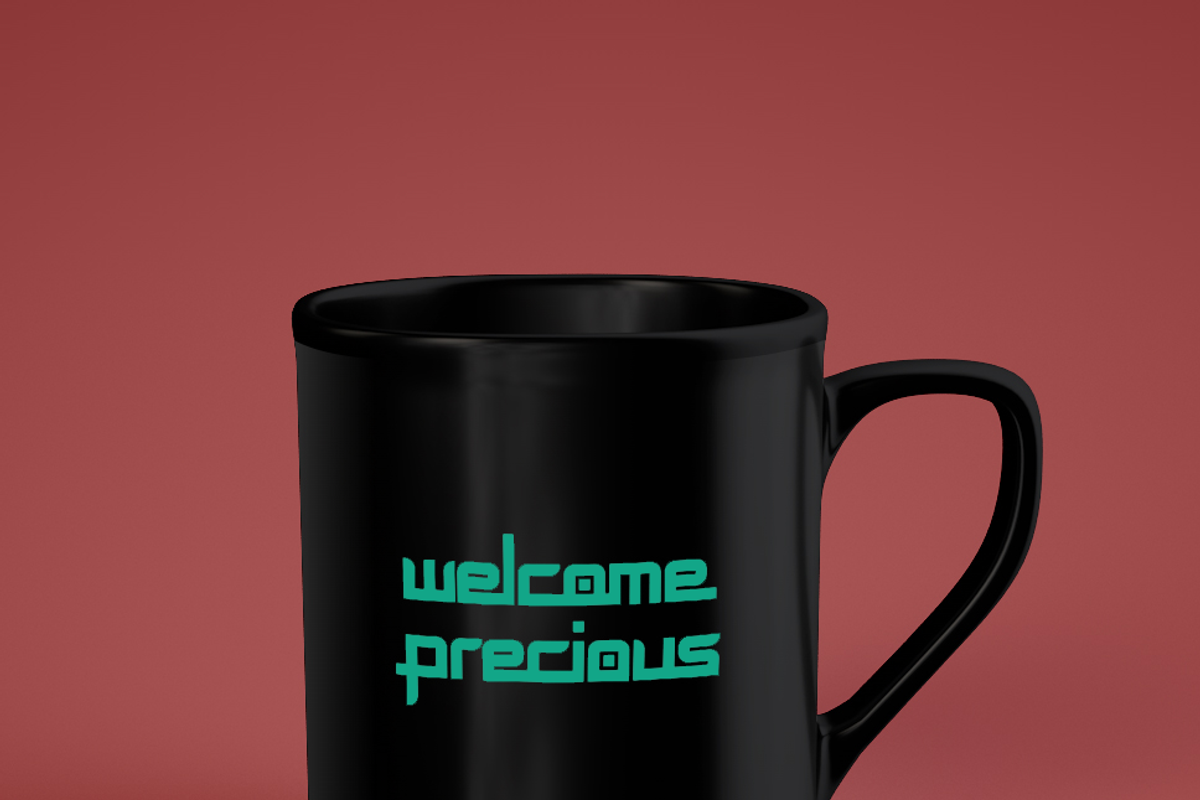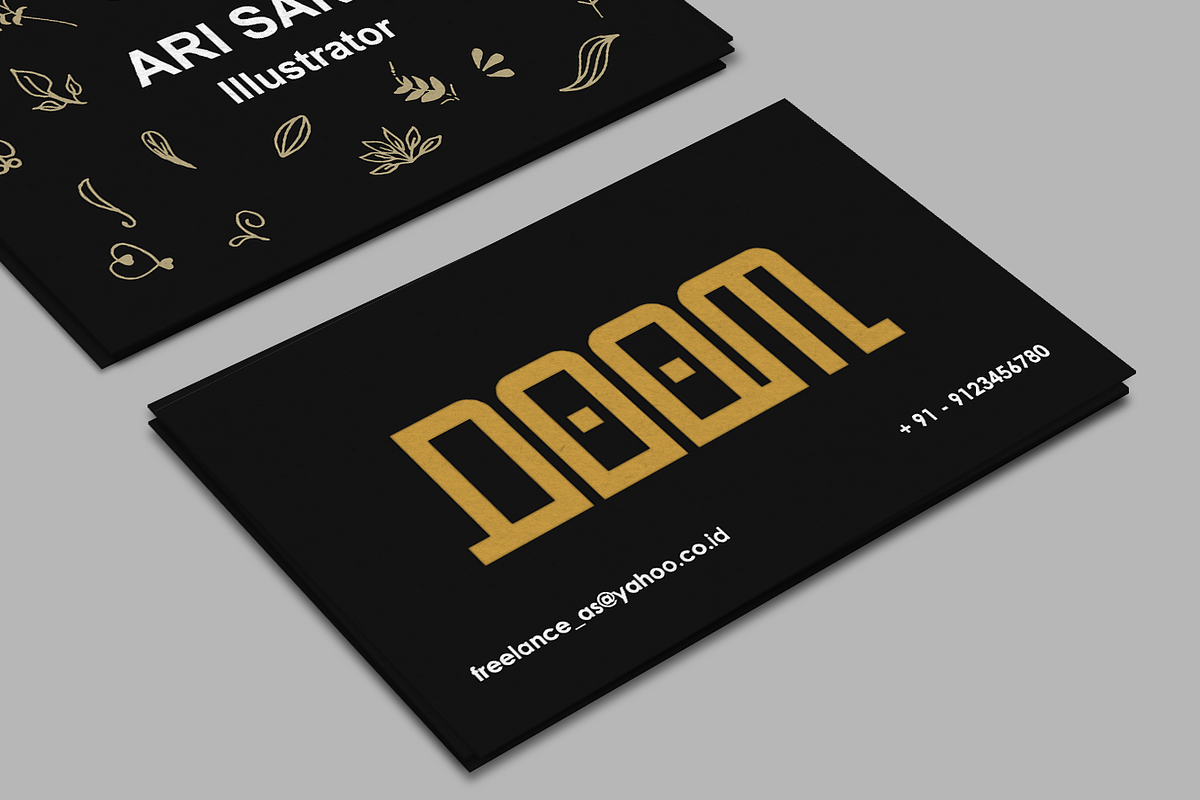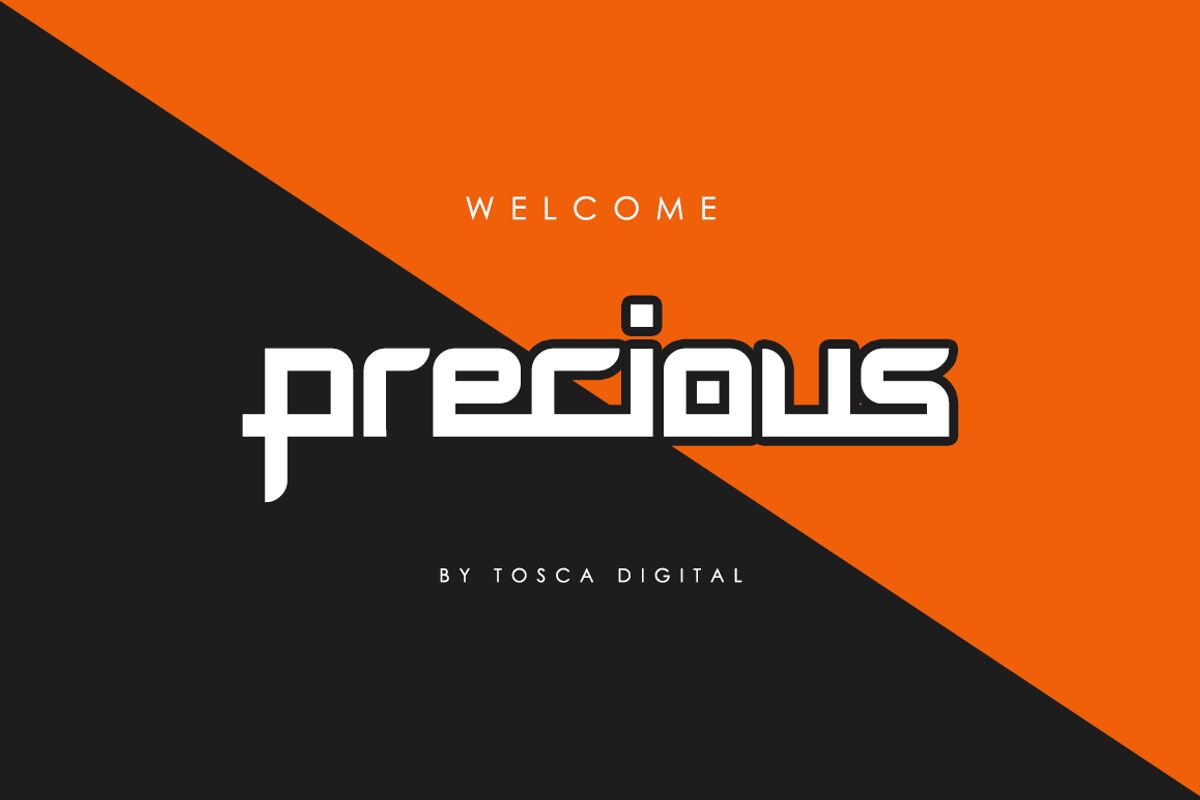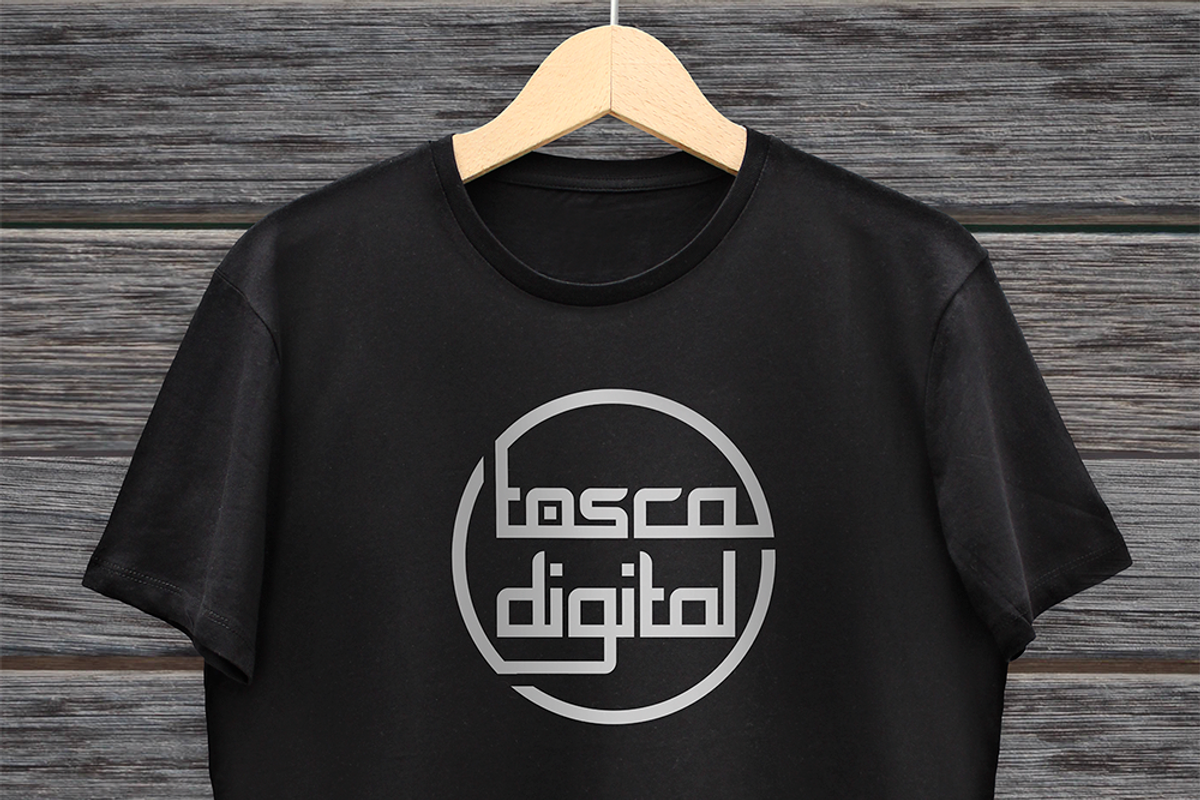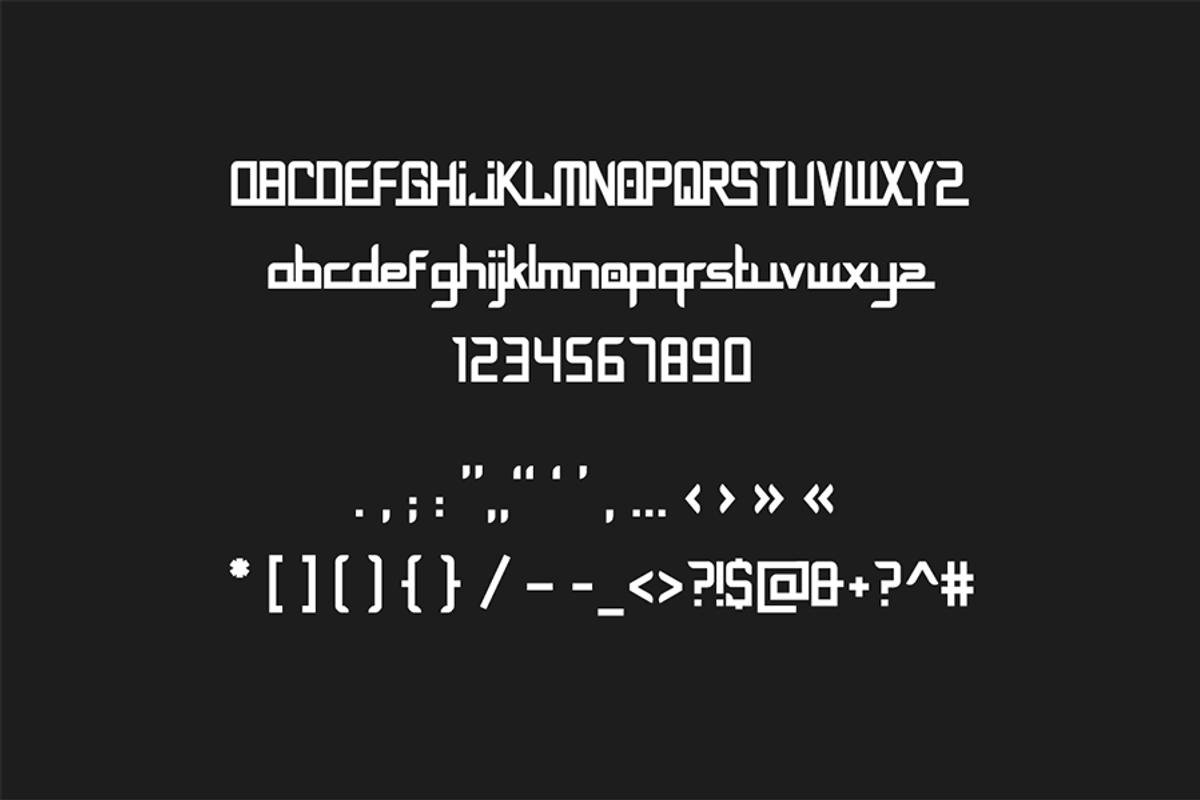
Precious Font
Precious Font by Tosca Digital is a font selected for branding, posters, packaging, typography.
Precious Font by Tosca Digital fits naturally into Branding, posters, packaging, typography.